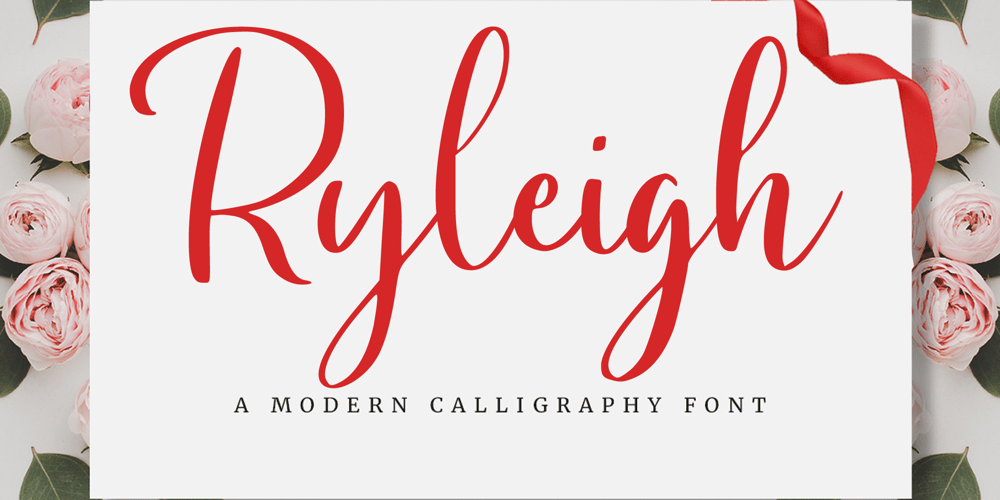
Ryleigh Font Family was designed by Heri Imanudin and published by Krafted. Ryleigh contains 1 styles and family package options. Introducing Ryleigh – A Modern Calligraphy Font. A fabulous and elegant modern calligraphy font that’ll engage your audience and make your branding stand out from the competition. Handcrafted to create the perfect contrast between your headings and body copy. Perfect for social media branding projects, fashion designs, printed quotes, packaging, or even as a stylish text overlay to any background image. Ryleigh includes Ligature & Stylistic Sets as well as Multilingual Support to make your branding reach a global audience. Let the world see your gorgeous projects with this modern calligraphy font! What you’ll get: Multilingual & Ligature Support Full sets of Punctuation and Numerals Compatible with: Adobe Suite Microsoft Office KeyNote Pages Software Requirements: The fonts that you’ll receive in the pack are widely supported by most software. In order to get the full functionality of the selection of standard ligatures (custom created letters) in the script font, any software that can read OpenType fonts will work. We hope you enjoy this font and that it makes your branding sparkle! Feel free to reach out to us if you’d like more information or if you have any concerns.